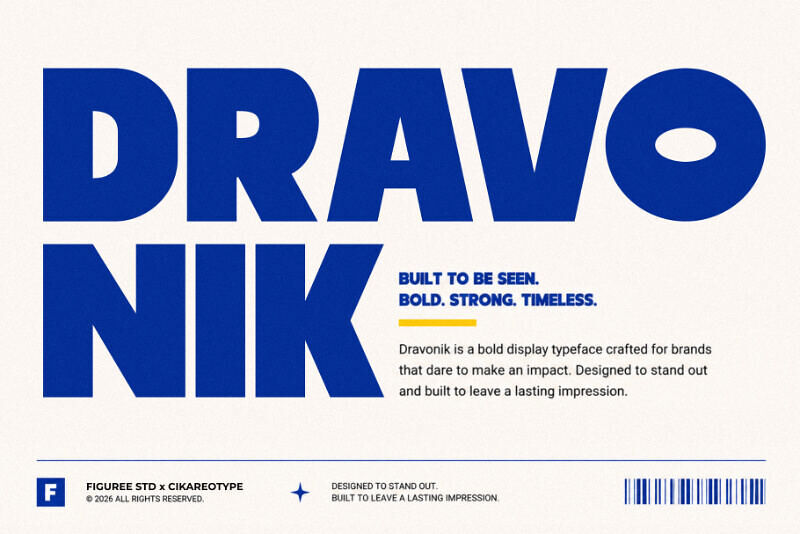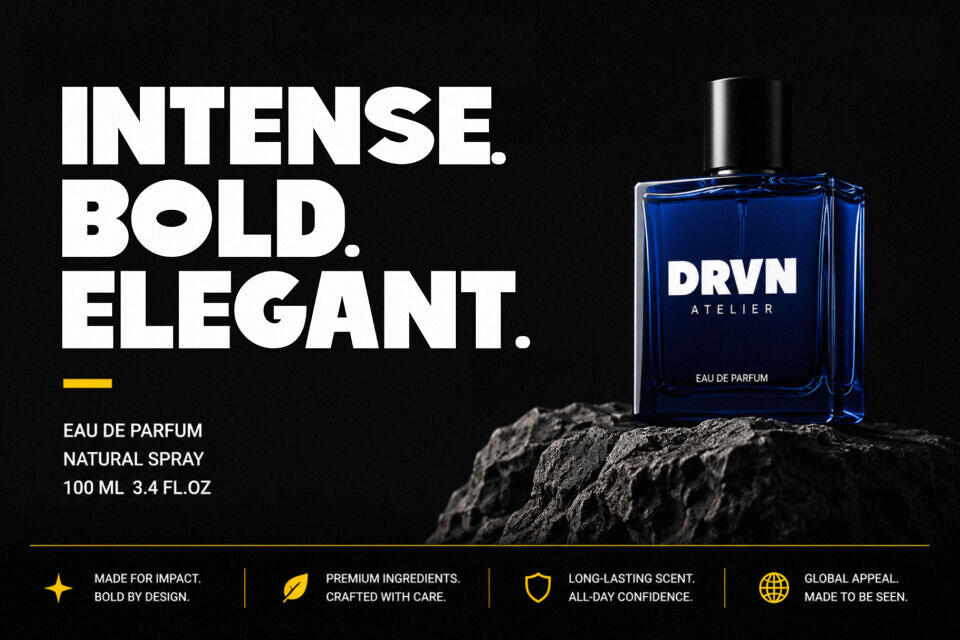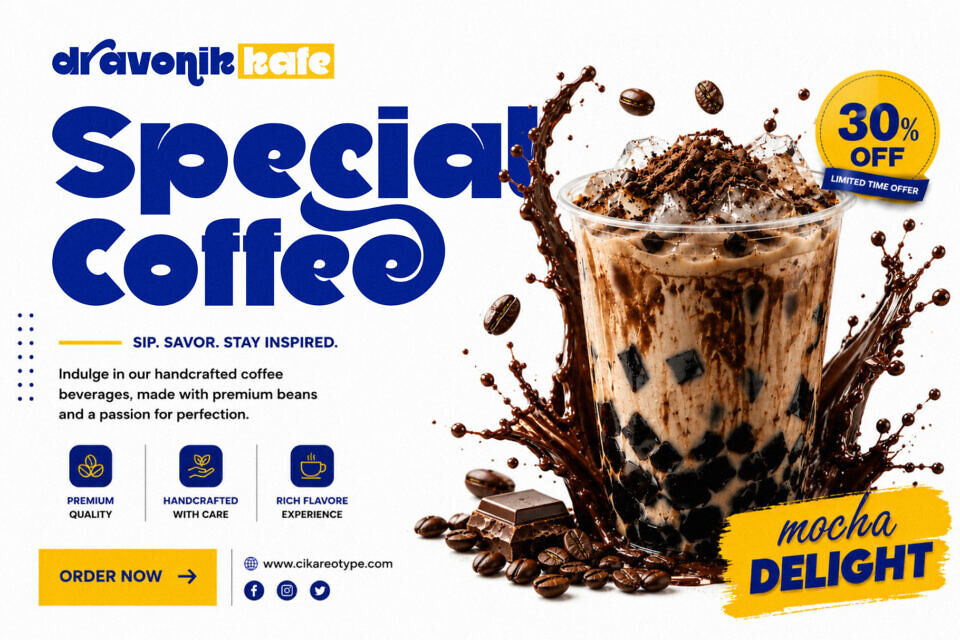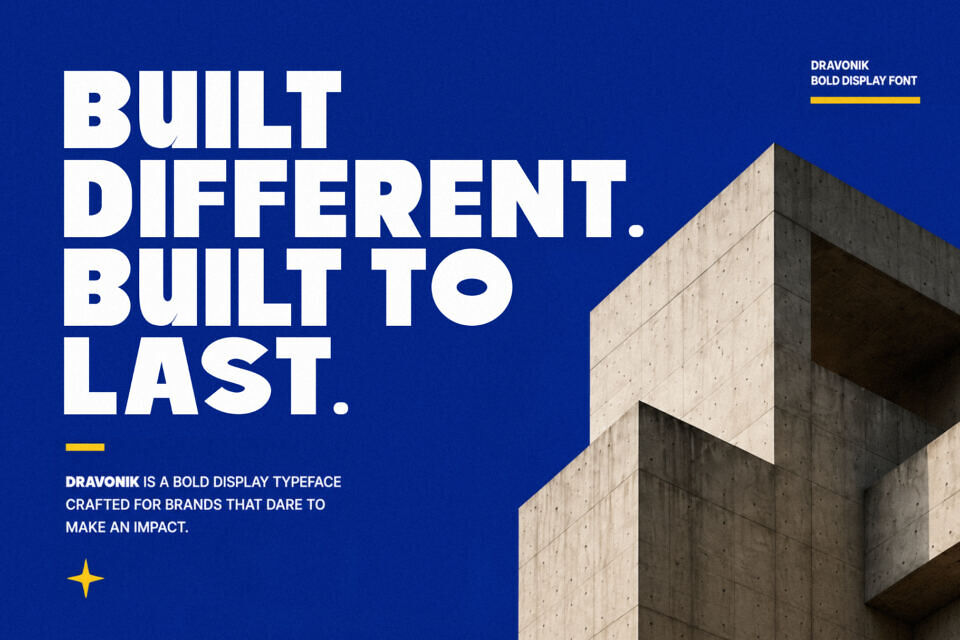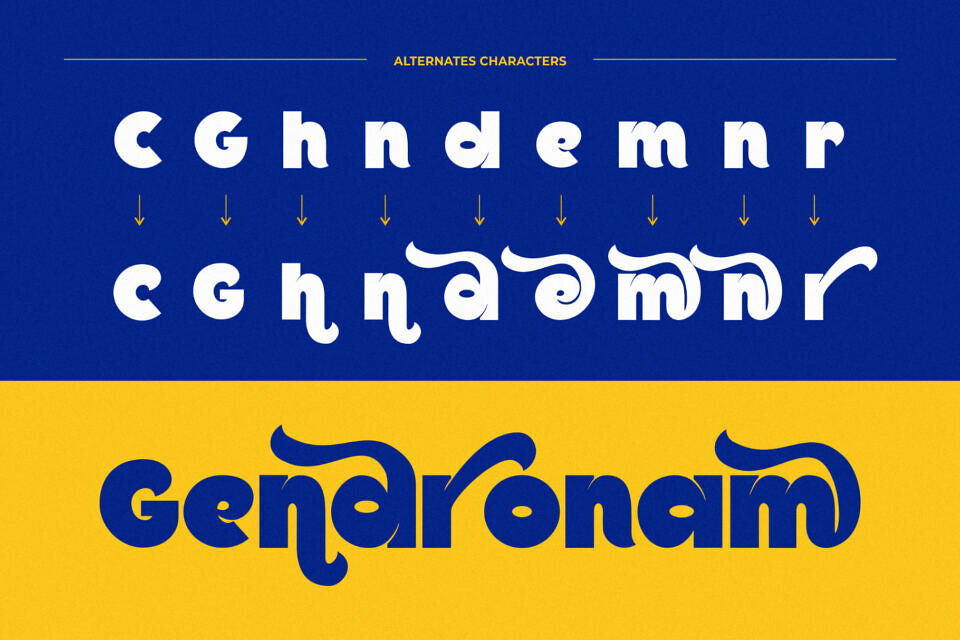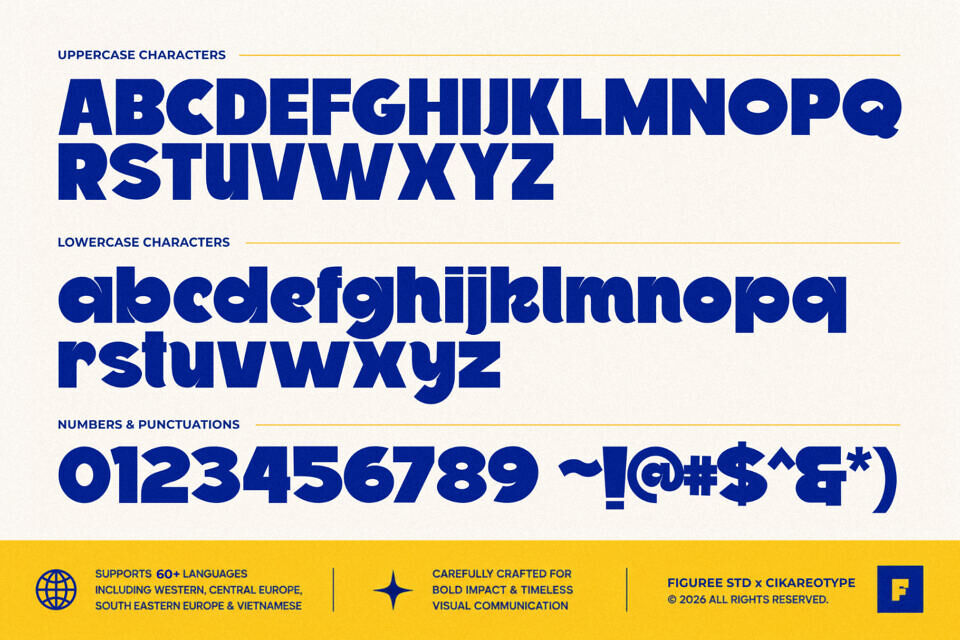
Dravonik Font
Introducing Dravonix; a modern, bold, and elegant typeface designed with geometric precision and luxurious detailing. This unique creation reflects contemporary aesthetic flair with its dynamic structure and powerful personality.
Dravonix encapsulates the ideals of trend-setting design elements found in fashion branding, futuristic designs, and cutting-edge tech visuals. Every character in the Dravonix font is meticulously crafted to offer superior readability while retaining a distinctive visual identity. This bold typeface commands attention, adding instant impact to logos, website headers, posters, and packaging designs.